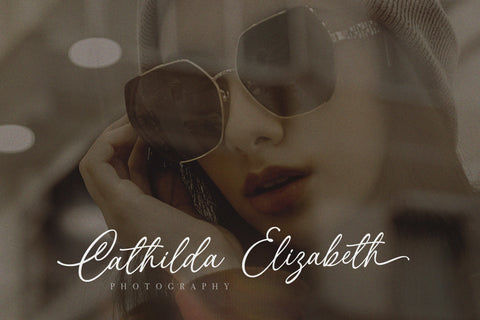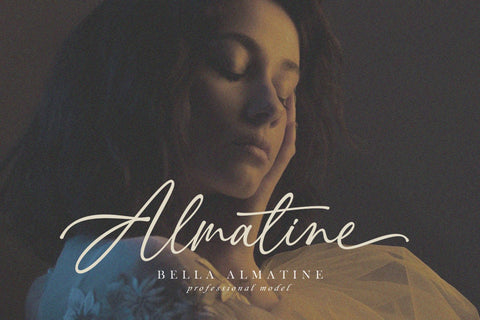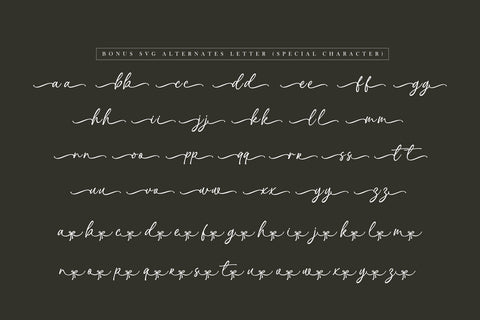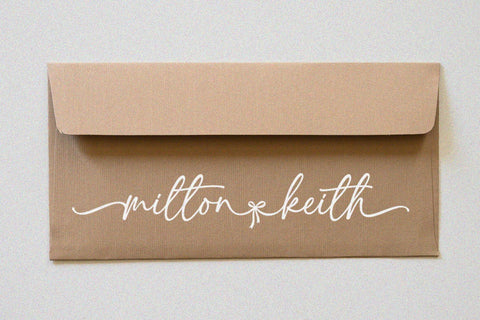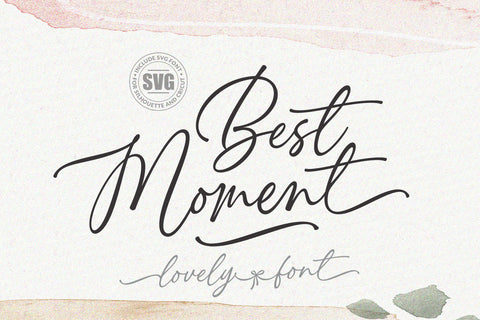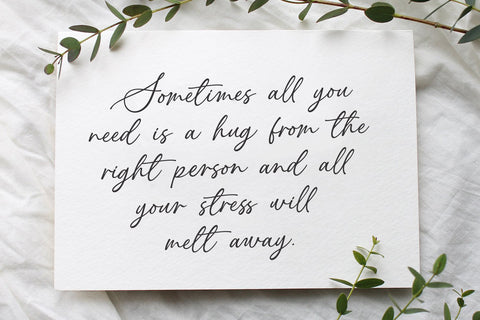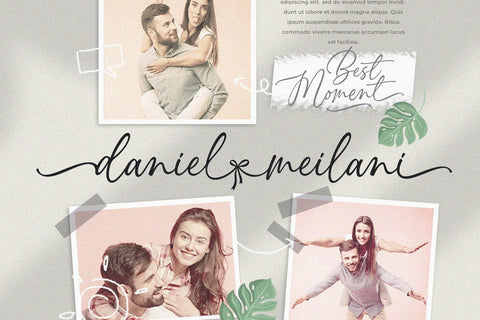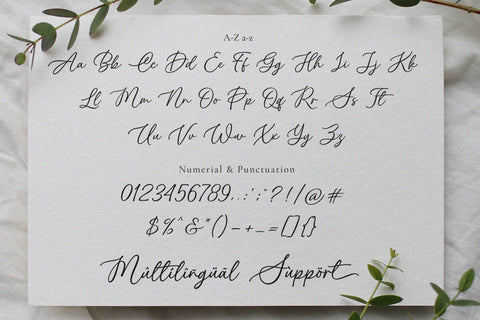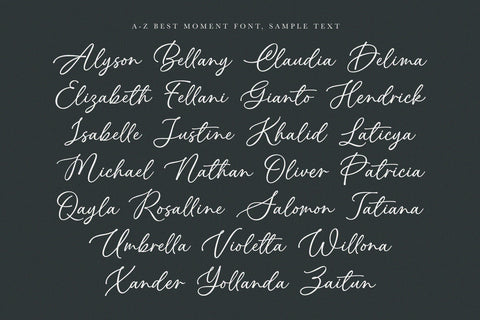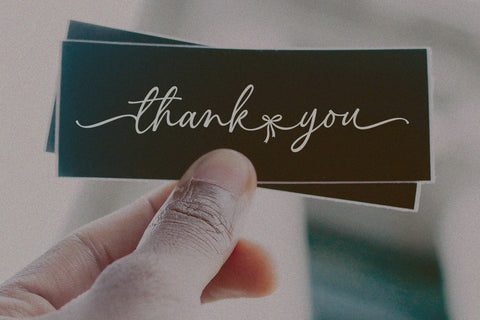
Best Moment - Signature Calligraphy Font
Best Moment is a Chic and Lovely Calligraphy font, described by a Love touch with natural handwritten style, perfect for your favorite projects.
Fall in love with its incredibly distinct and timeless style and use it to create spectacular designs!
"Best Moment" includes a full set of lovely uppercase and lowercase letters,
multilingual symbols, numerals, punctuation and ligatures. Also it includes: Alternates letter for lowercase beginning and ending swashes,
lowercase ending ribbon swashes, which serve to connect two words or letters (This is so perfect for invitations, monograms)